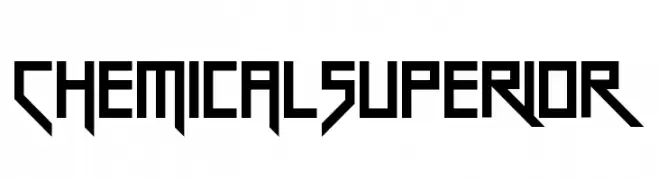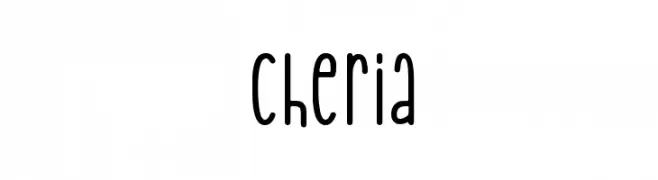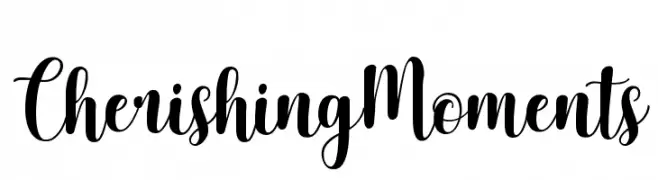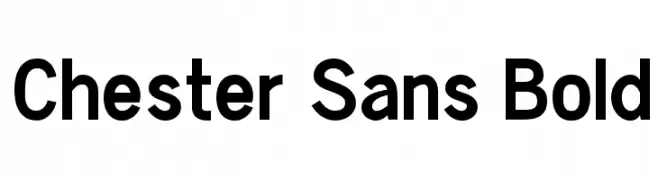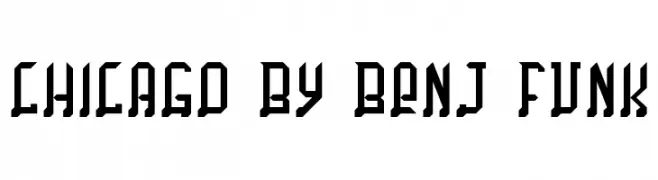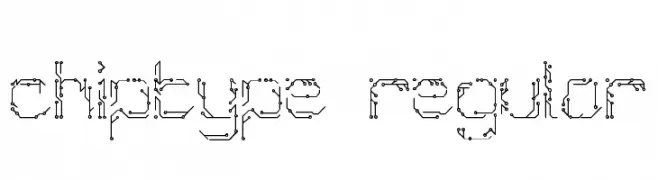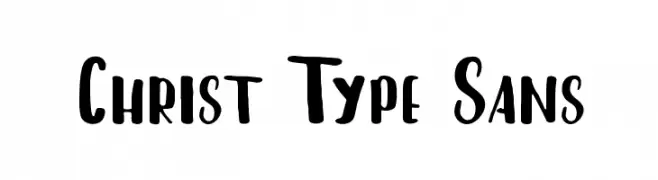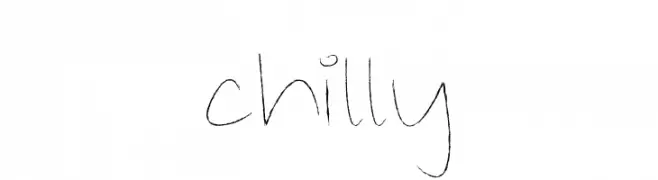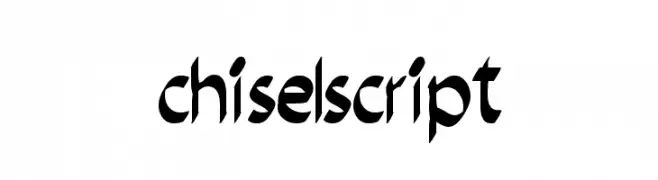
( Chequered Ink - chequered.ink/ )
A bold, geometric font with sharp angles and a futuristic look.
( 7NTypes - Situjuh Nazara - 7ntypes.com )
A playful, rounded font with a hand-drawn aesthetic and consistent stroke width.
( Cat.B - Agathe M.Joyce - www.foundmyfont.com )
An elegant, flowing script font with smooth, cursive strokes and artistic flair.
( Boris Garic )
A bold, modern sans-serif typeface with clean lines and uniform strokes.
( Benj Funk - benjfunk.com )
A bold, geometric font with a futuristic and angular design.
( Cecilia Rodríguez )
A casual, handwritten font with a playful and informal style.
( 3 Halves Design - Ken Baird - www.3halvesdesign.com )
A decorative, tech-inspired font with circuit-like patterns.
( Ajith Rajan - ajithrajan.tk )
A dynamic, angular font with a chiseled, modern appearance.
( Attype Studio - Fadli Ramadhan Iskandar - thehungryjpeg.com/attype-studio/ )
A bold, playful font with a hand-drawn, artistic style.
( Cat Neligan )
A festive, decorative font featuring Christmas-themed elements within each character.